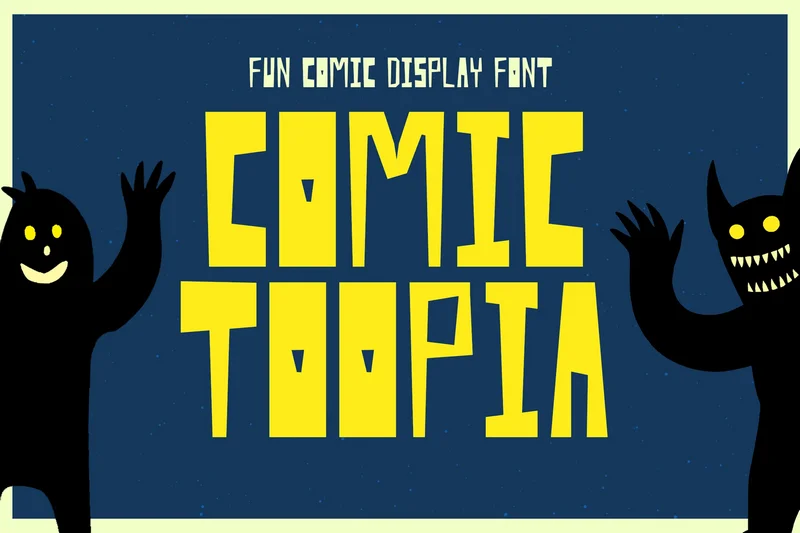
Comic Toopia – Playful Comic Display Font
Comic Toopia is a playful comic display font packed with personality and charm. Its uneven letter shapes give off a hand-drawn, cartoonish vibe that feels energetic and full of character. With bold and quirky strokes, this font brings every word to life, making it perfect for titles, comic covers, posters, funny character designs, and any project that wants to stand out with a fun and expressive style. Inspired by classic retro comic aesthetics with a modern twist, Comic Toopia adds a whimsical touch that instantly grabs attention. Whether you’re creating kids’ designs, monster-themed graphics, or just want a font that screams creativity, this one is made to spark imagination and joy.